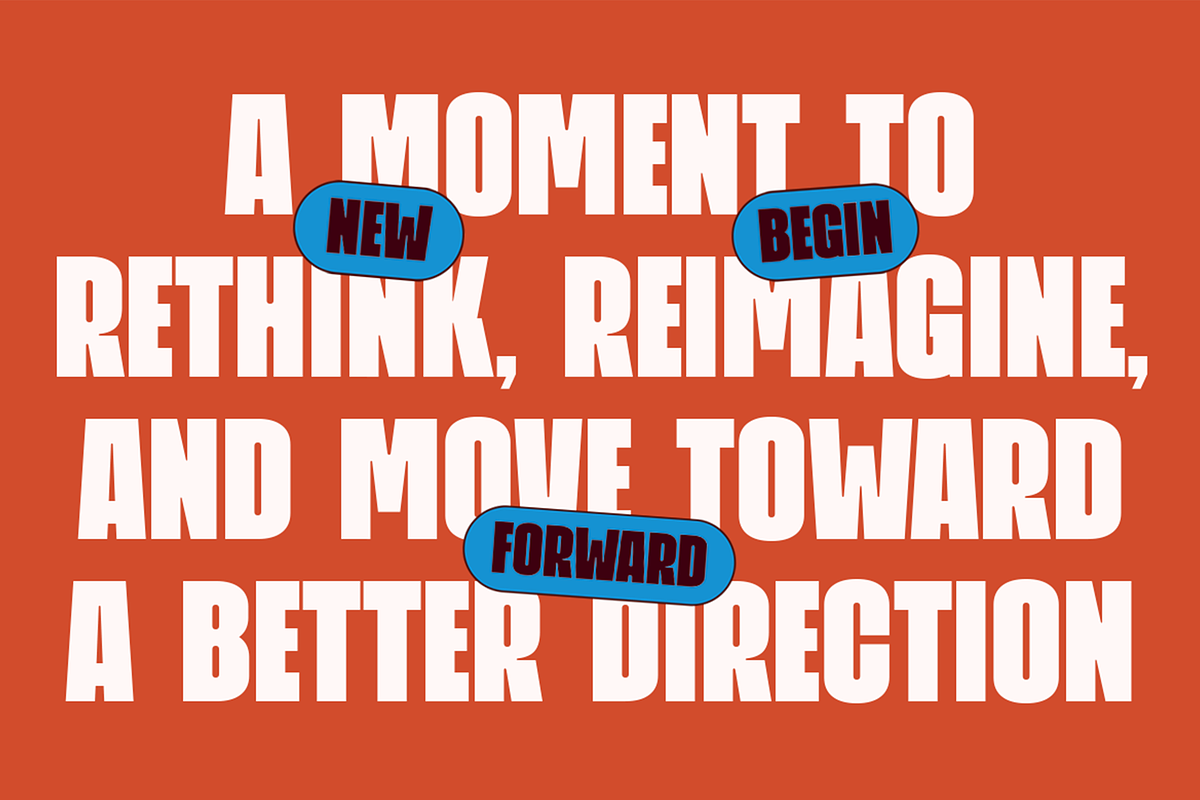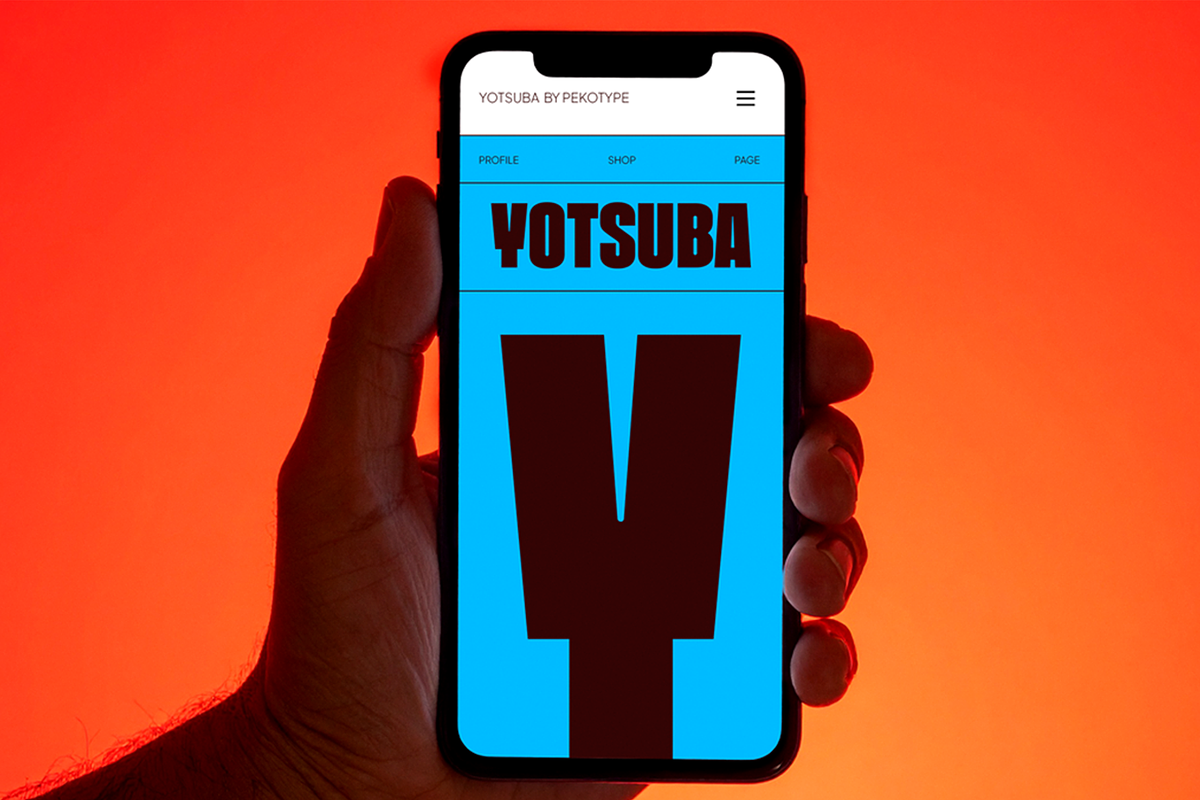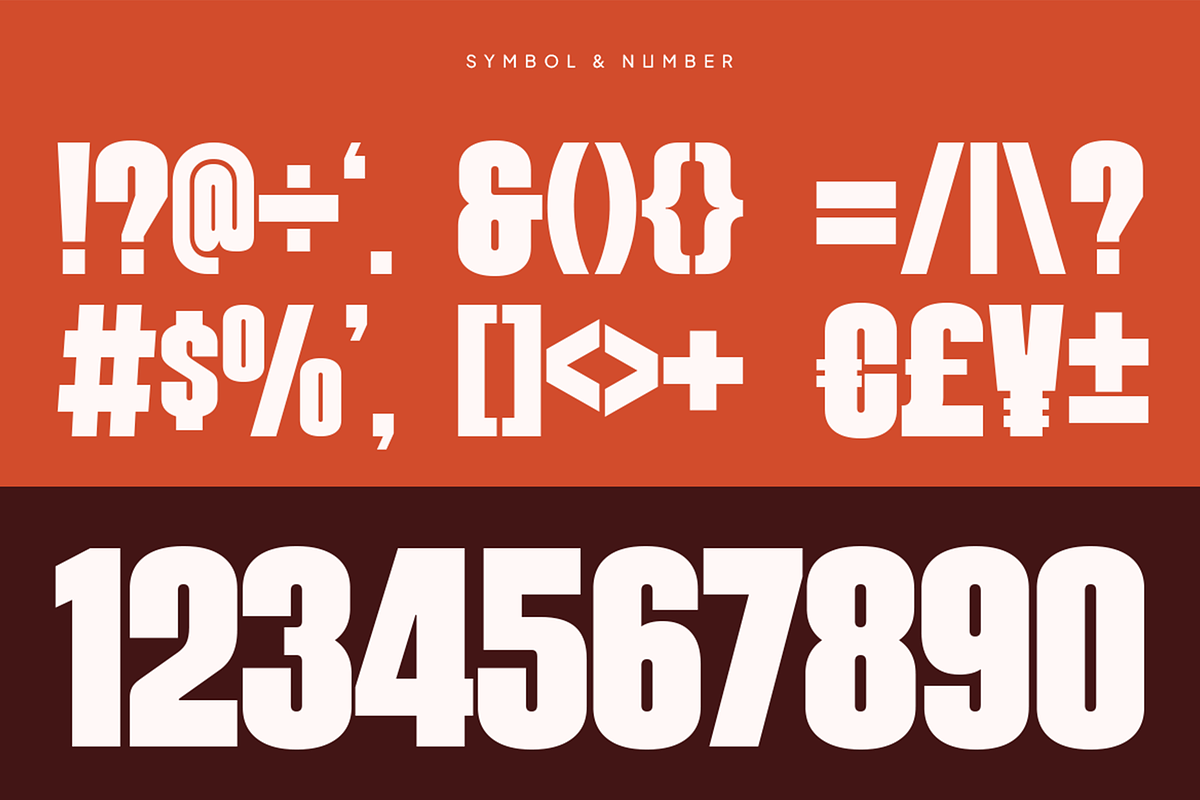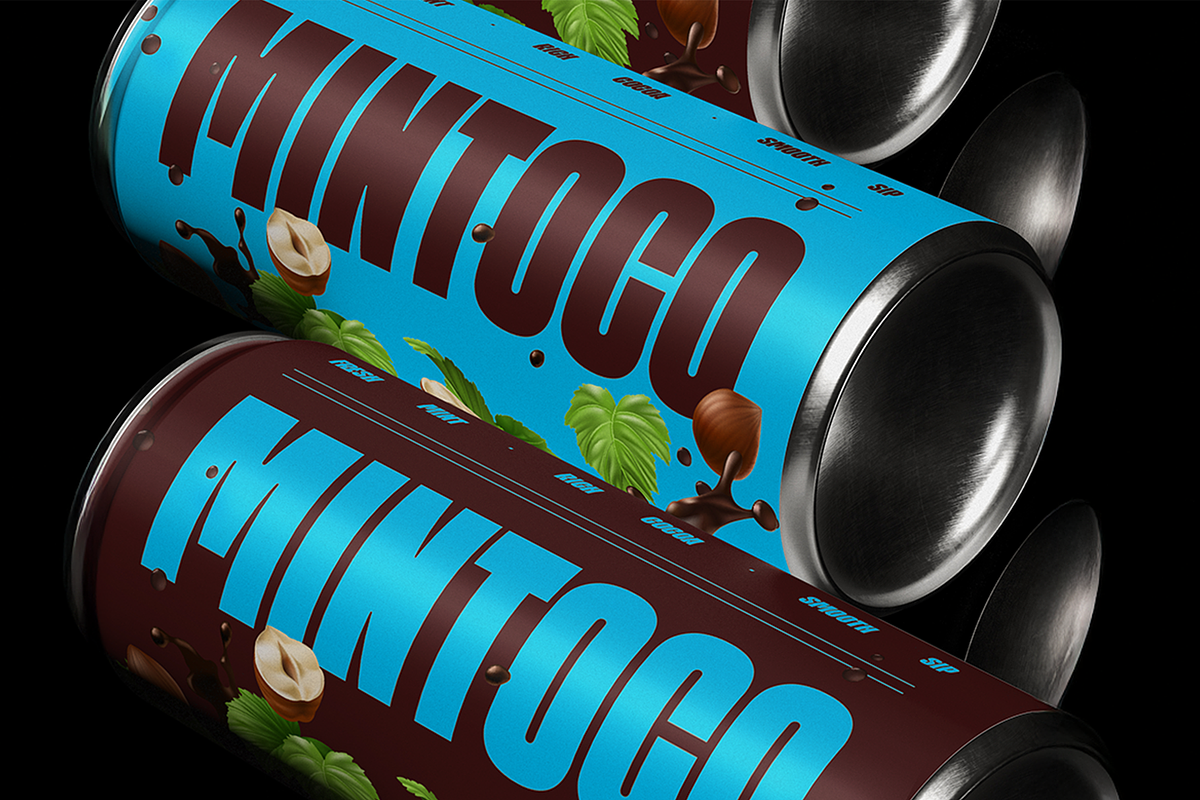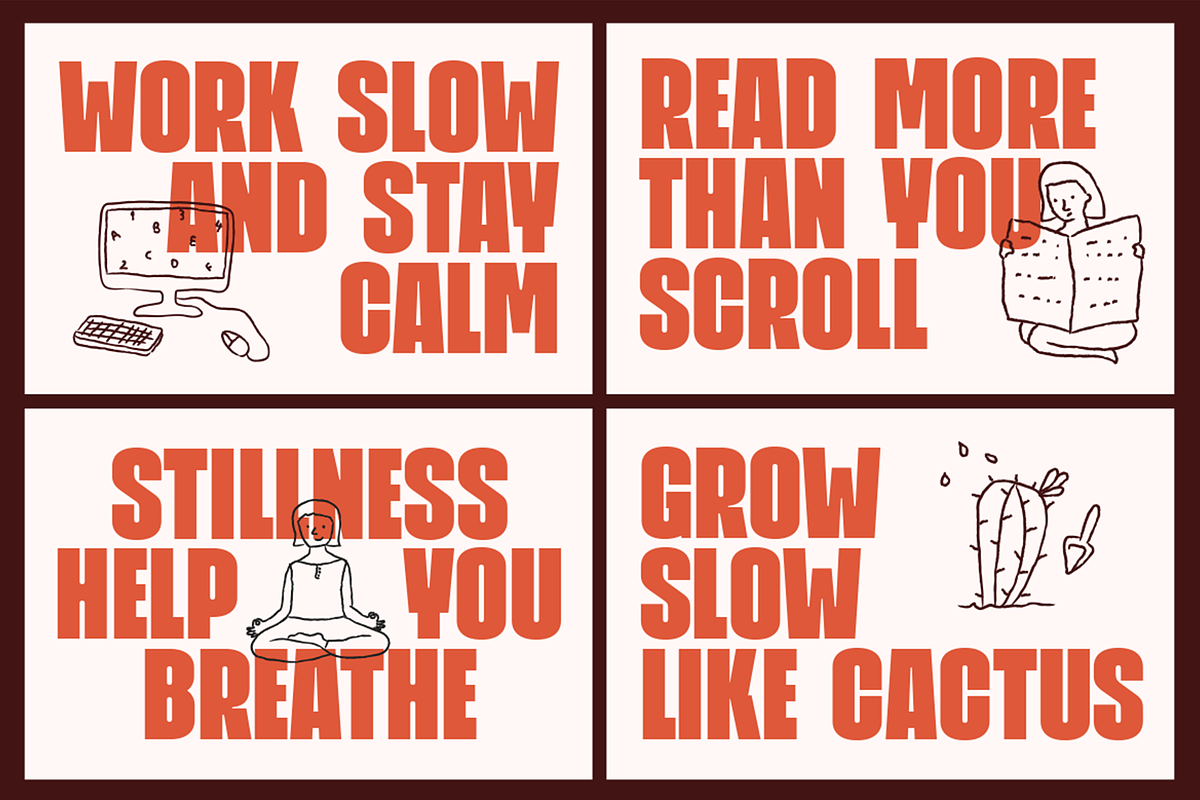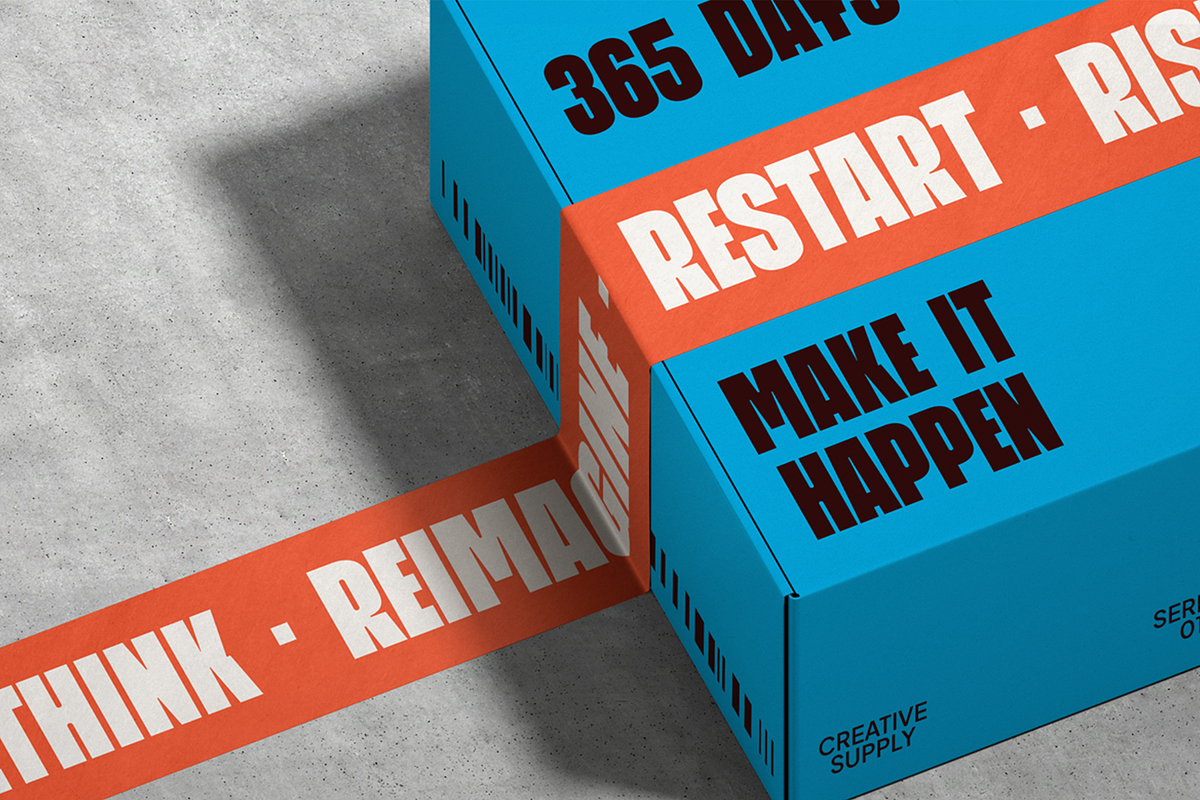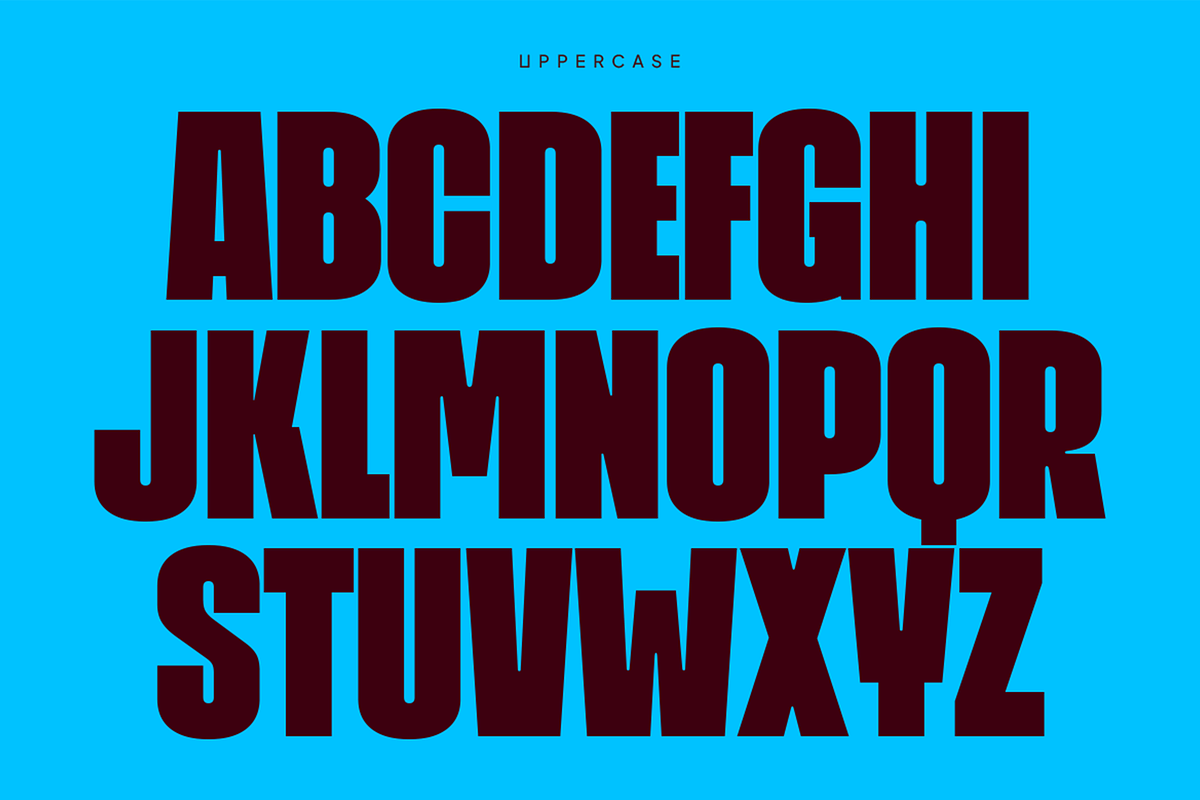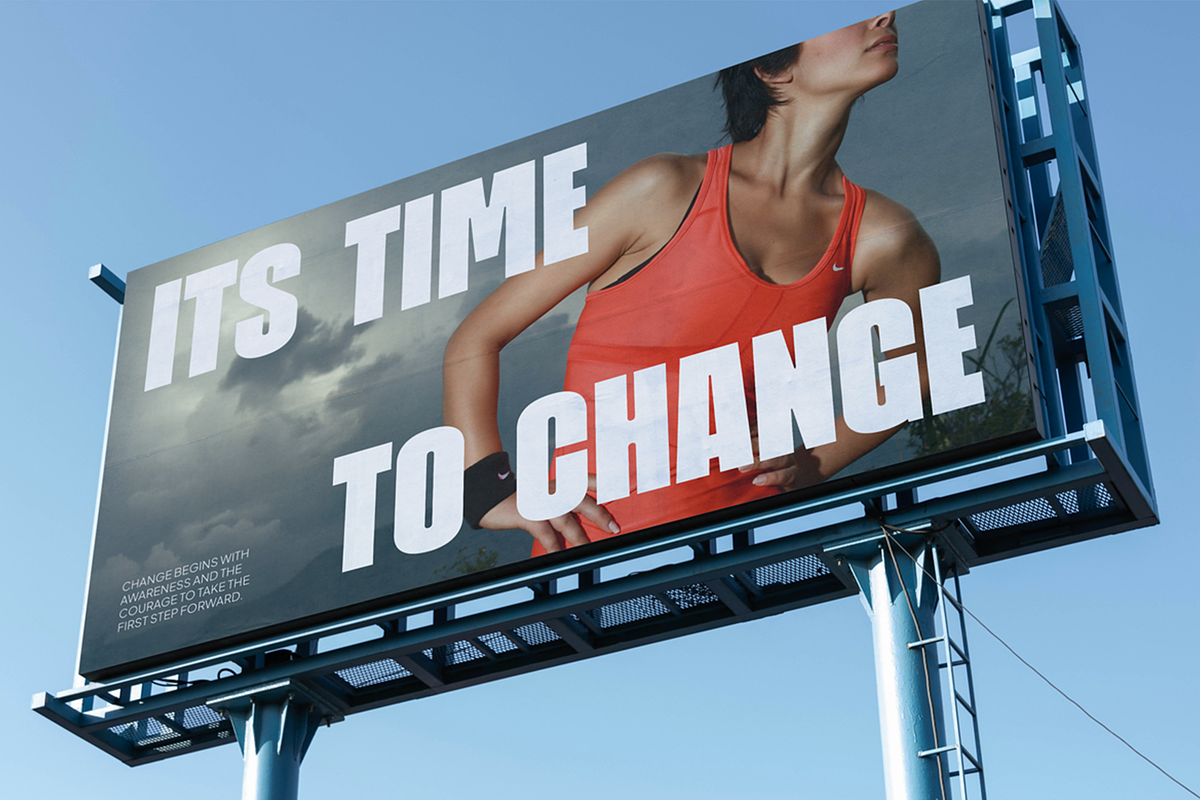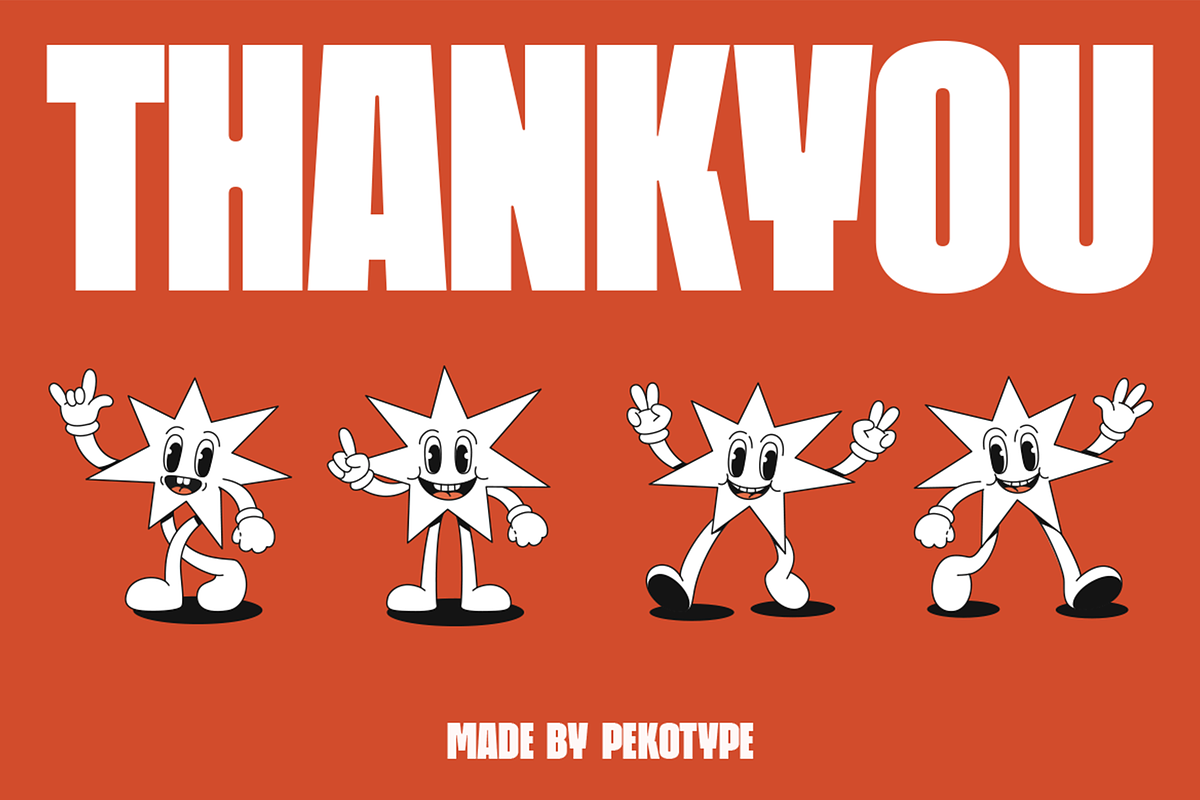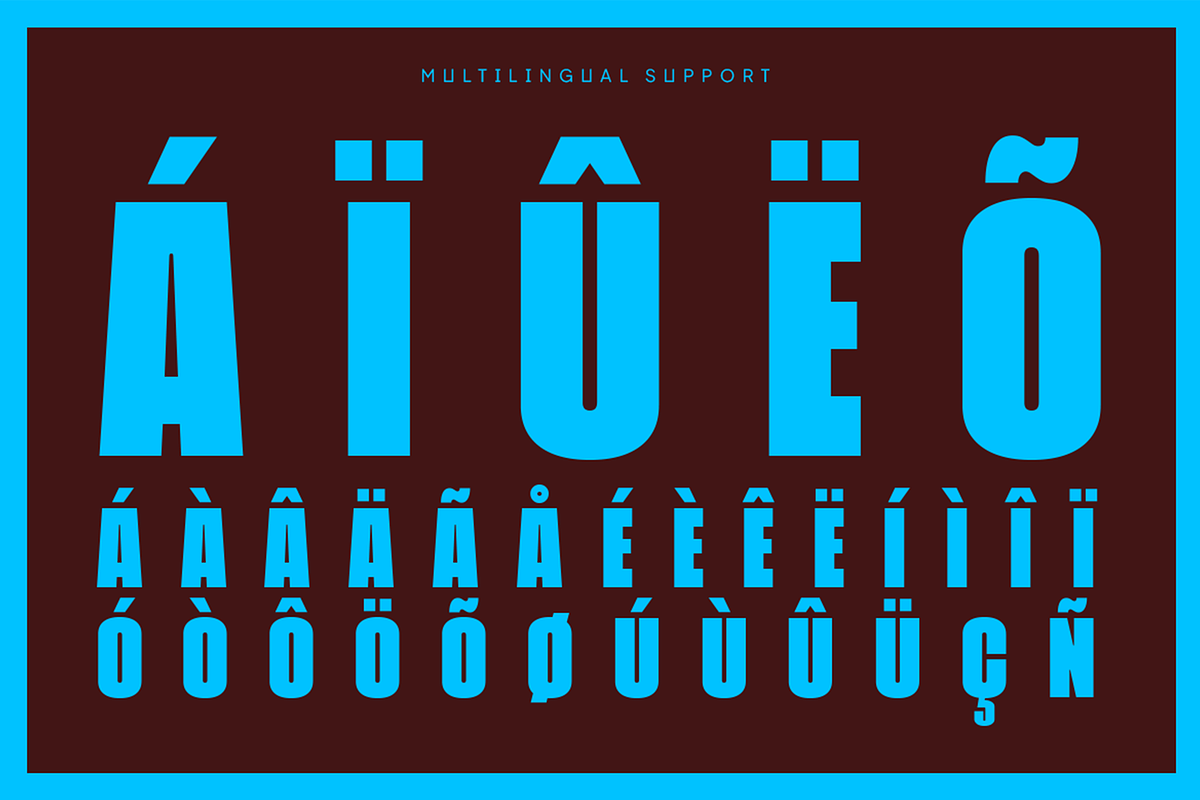
Yotsuba - Bold Condensed Display Fon
YOTSUBA is a bold condensed display font with chunky shapes and smooth rounded details. The letters are thick, tight, and strong, giving your text a powerful and modern look while still feeling friendly and easy to read. Its compact style makes it perfect for big headlines without taking too much space. With uppercase, numbers, symbols, and multilingual support, YOTSUBA is ready for many creative uses.
This font works great for posters, product packaging, branding, logos, social media graphics, and bold advertising. It fits perfectly for beverage labels, street-style designs, billboards, apps, and modern promo visuals—just like the preview with cans, signage, and big headlines. If you want a font that feels bold, fun, and impactful, YOTSUBA will help your design stand out instantly.
- All Caps
- Number, Symbol, & Punctuation